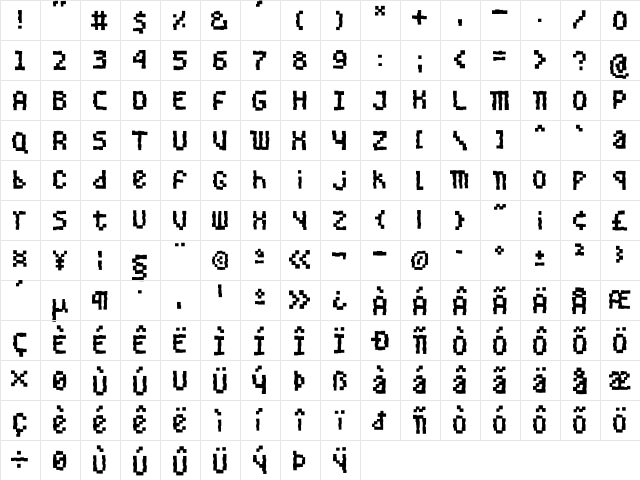
BuggedBit Medium
Design Context for BuggedBit Typeface
BuggedBit takes a measured approach to typography — its balanced proportions and neutral character make it a reliable workhorse for both digital and print work.